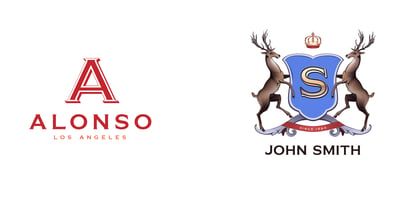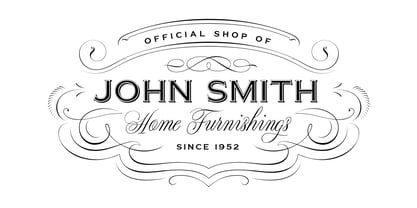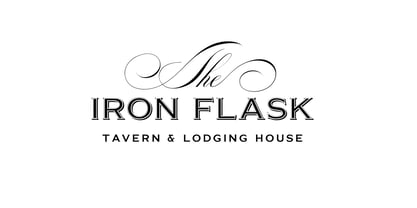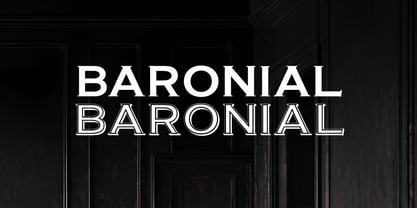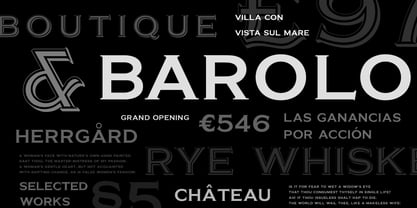
Baronial
The Baronial Font Family was designed by Aleksey Ivanov and published by vatesdesign. Baronial contains 2 styles and family package options. More about this family
Baronial is my bold and distinctive take on classic Copperplate Gothic typefaces — reimagined as a striking all-caps display font . Combining the elegance of traditional engraving styles with the strength of gothic design, Baronial brings timeless character and modern impact to any project.